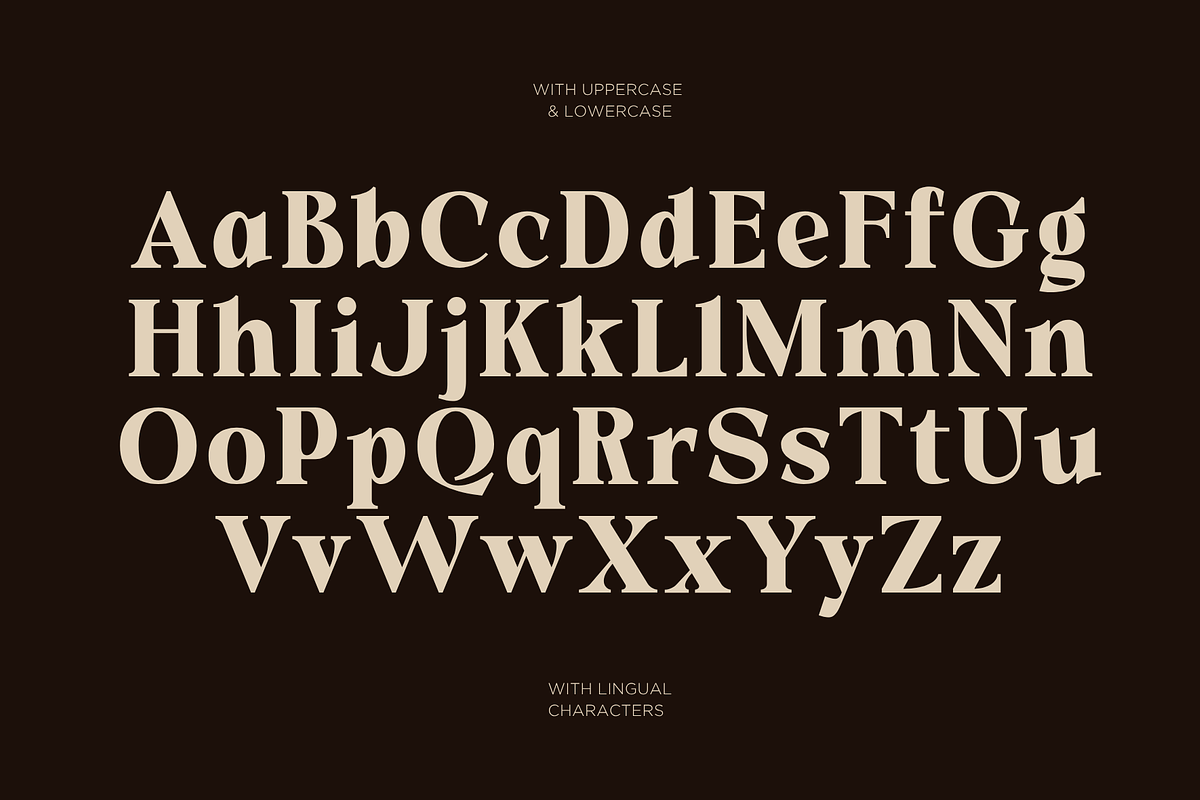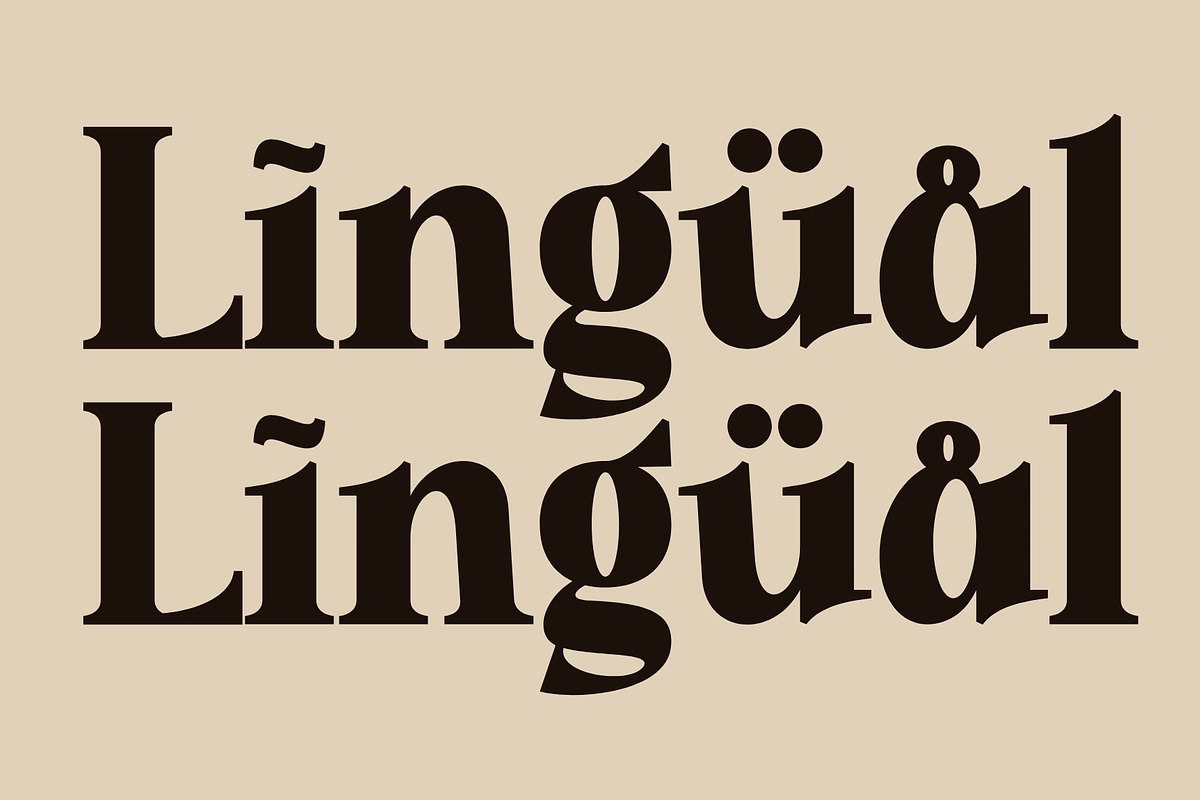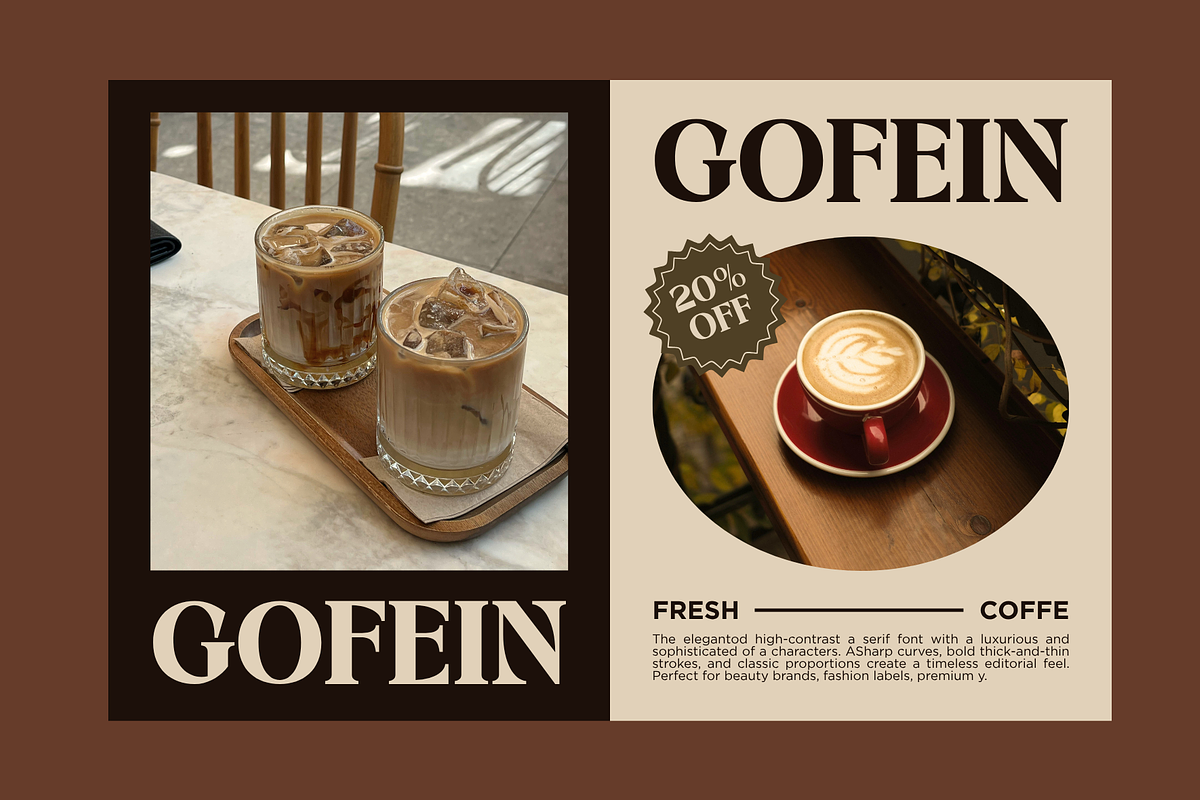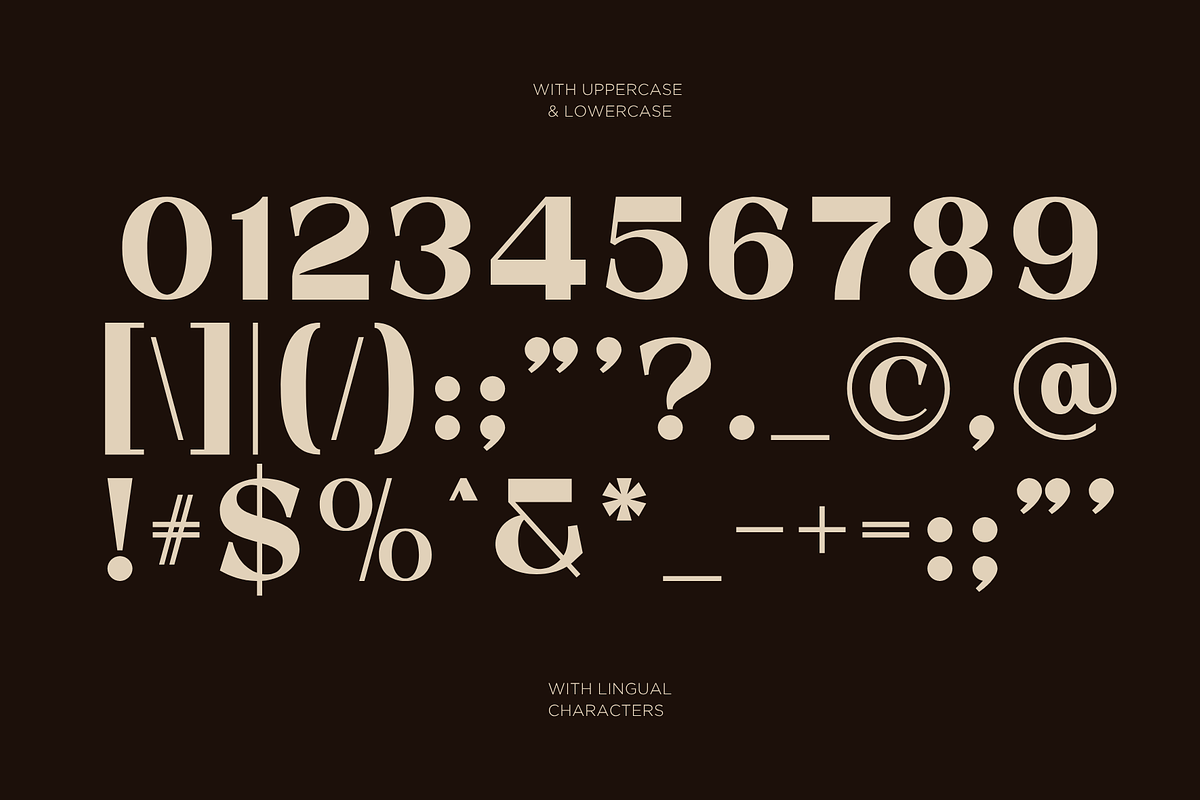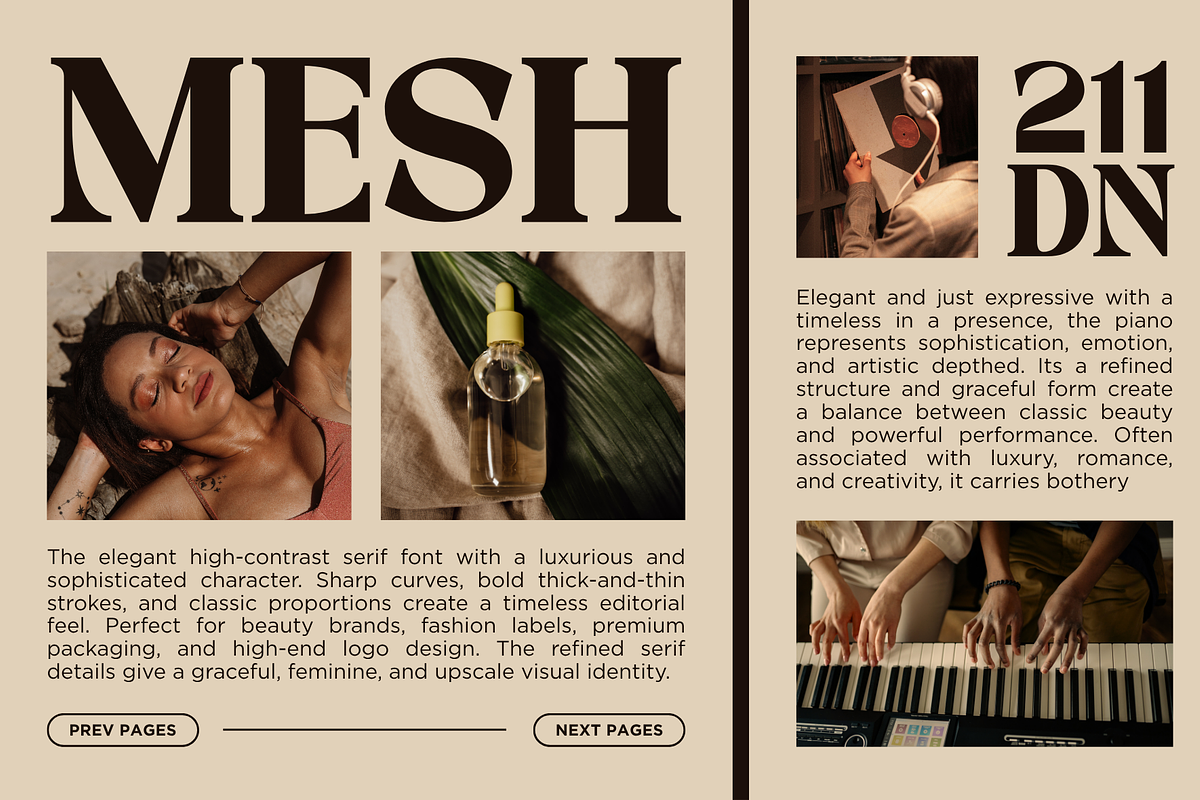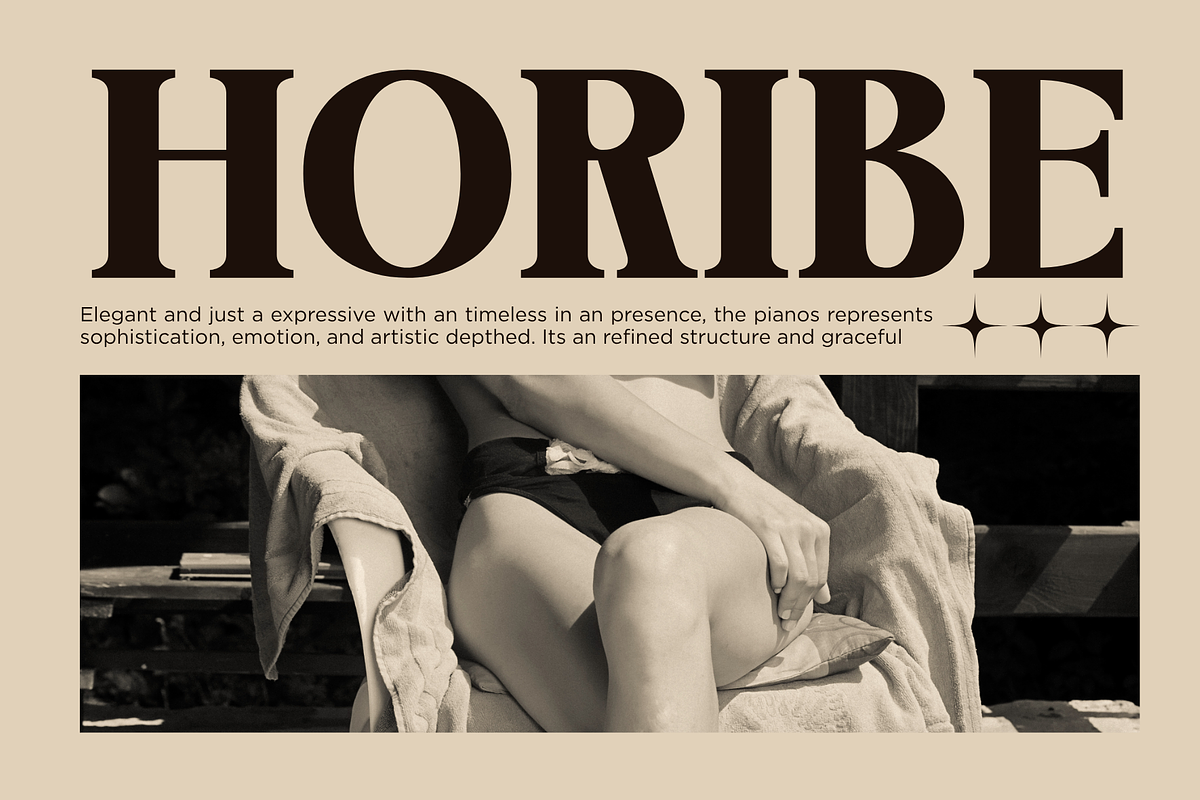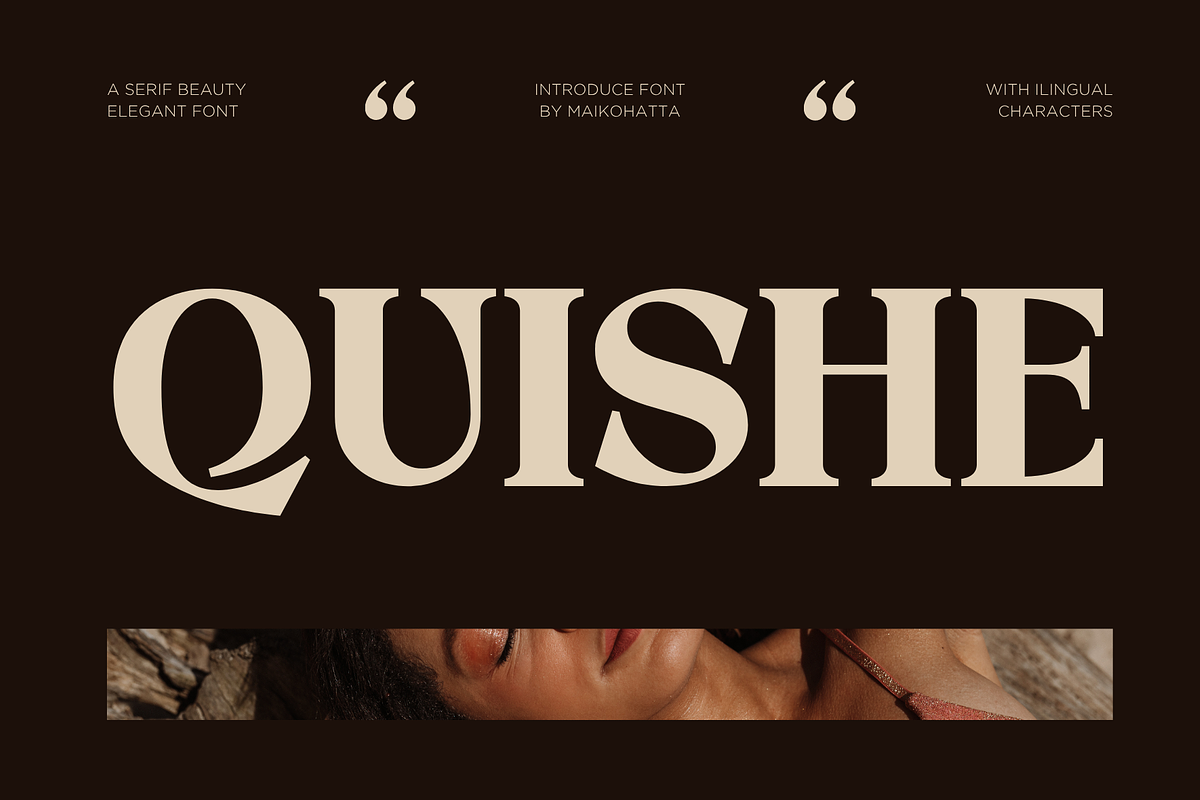
Quishe – Modern Elegant Serif
Introducing our new product Quishe – Modern Elegant Serif
Quishe is a modern elegant serif font that combines timeless beauty with a contemporary touch. Designed with refined details, smooth curves, and high-contrast strokes, Quishe delivers a sophisticated and stylish look for premium design projects.
Perfectly suited for fashion, beauty, and editorial needs, this typeface brings a luxurious feel to any layout. Whether you're creating logos, magazine headlines, branding, or wedding invitations, Quishe adds a polished and high-end aesthetic effortlessly.
Its clean yet expressive letterforms make it highly versatile—ideal for both minimal designs and bold visual statements. Quishe also includes multilingual support, making it a great choice for global branding and professional use.
Uppercase & Lowercase Characters